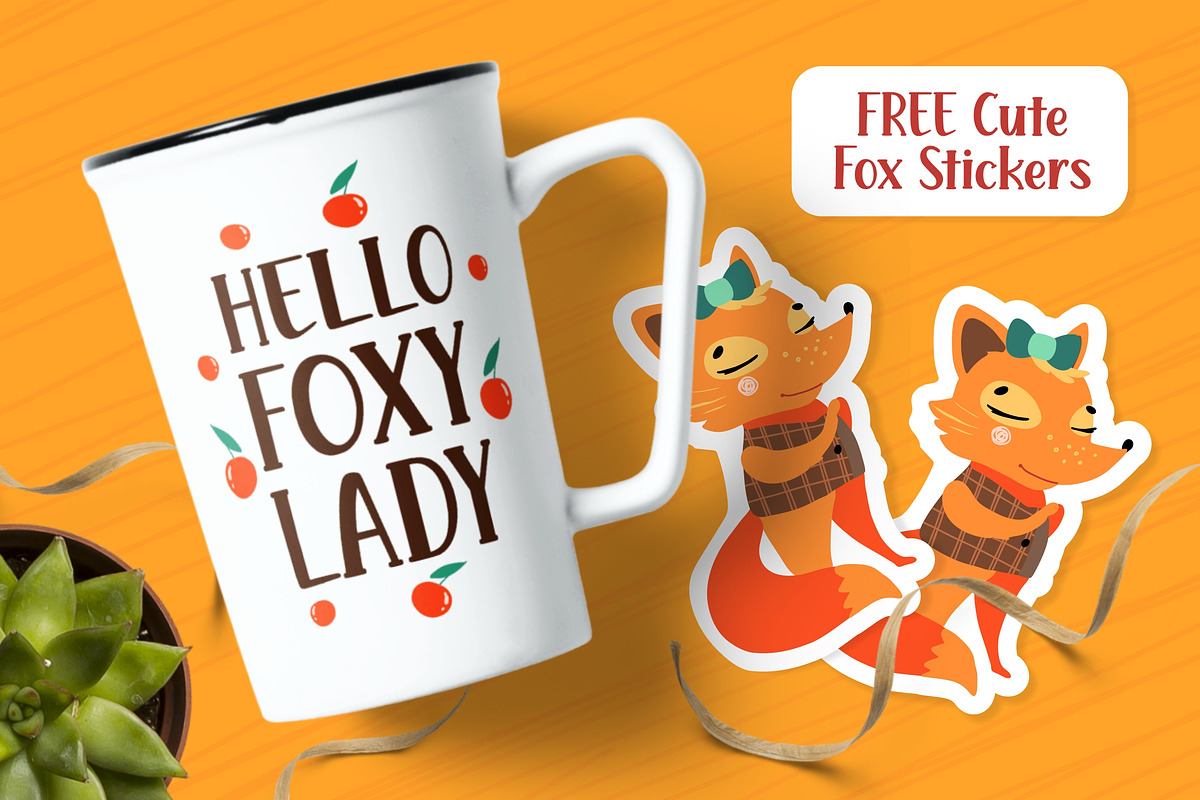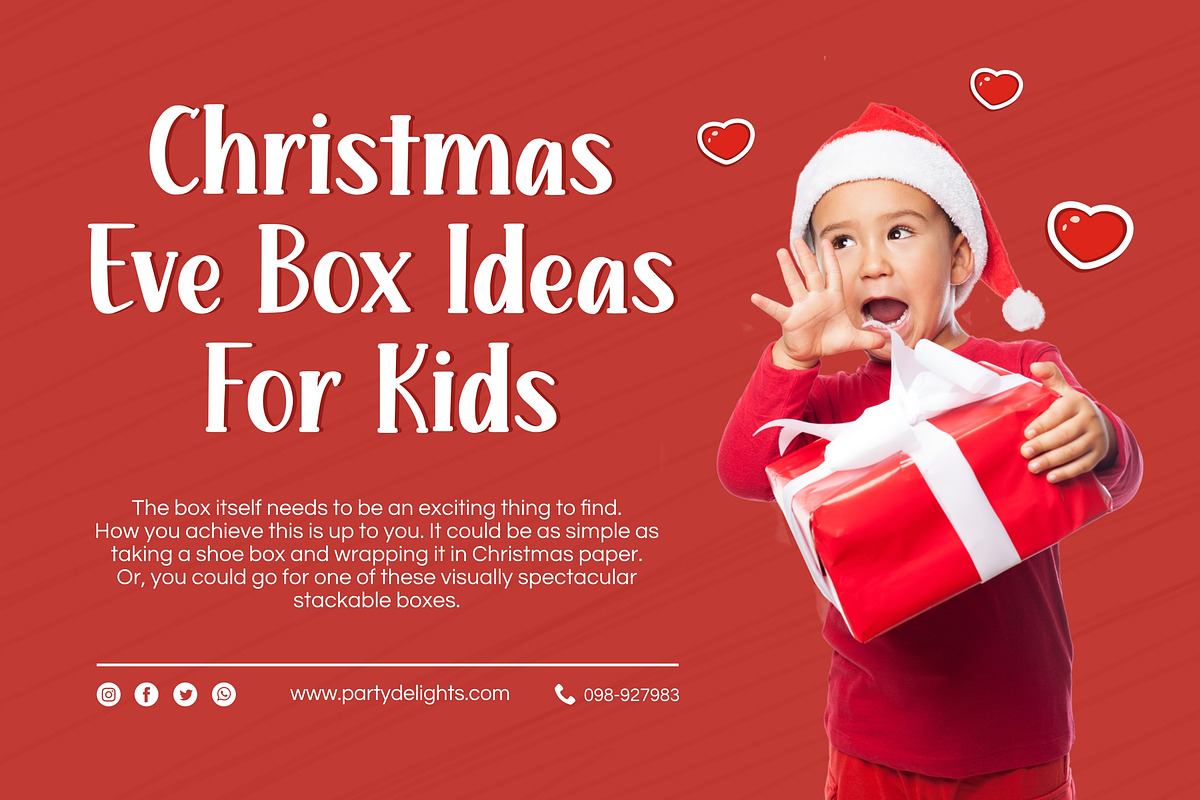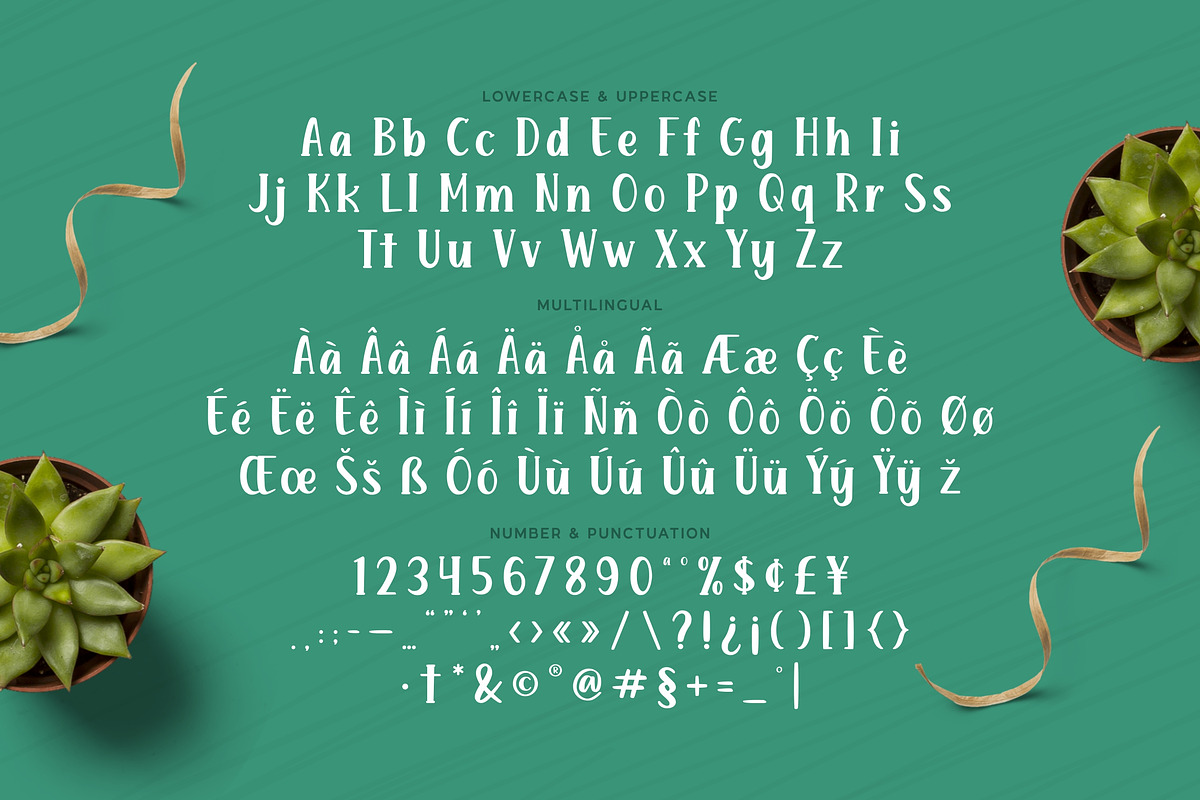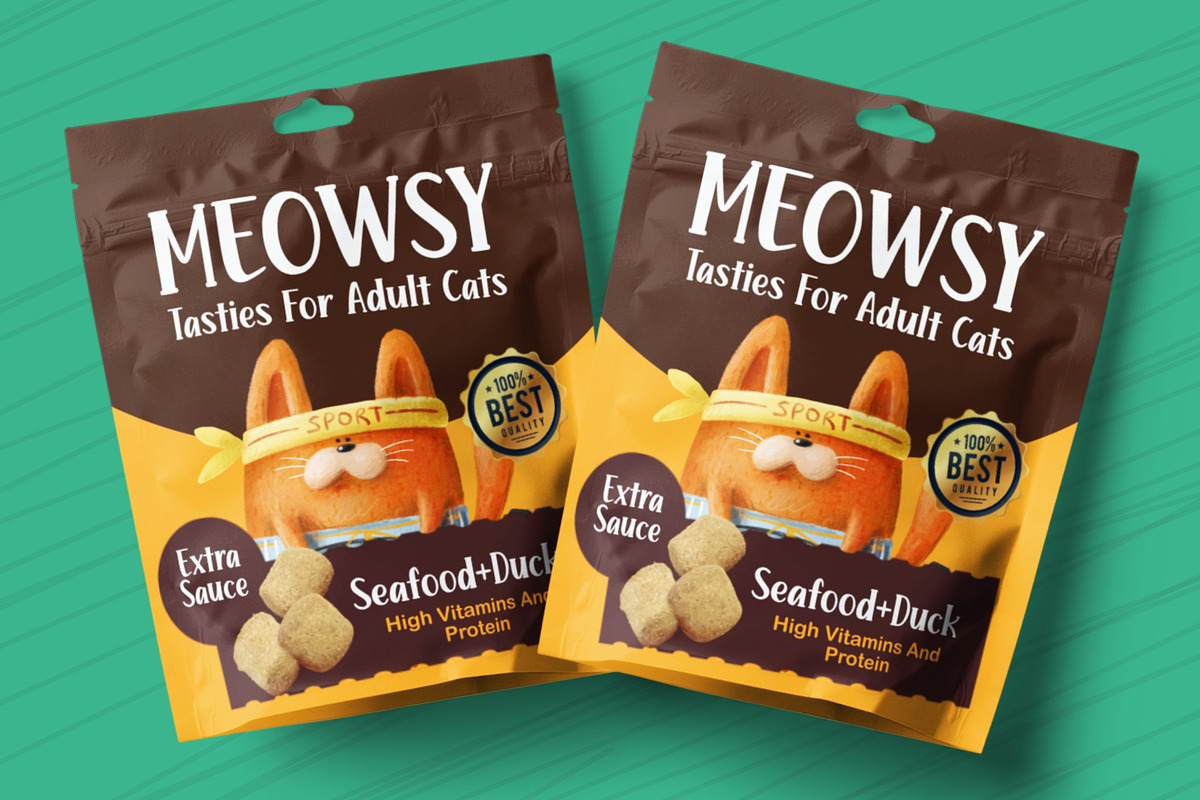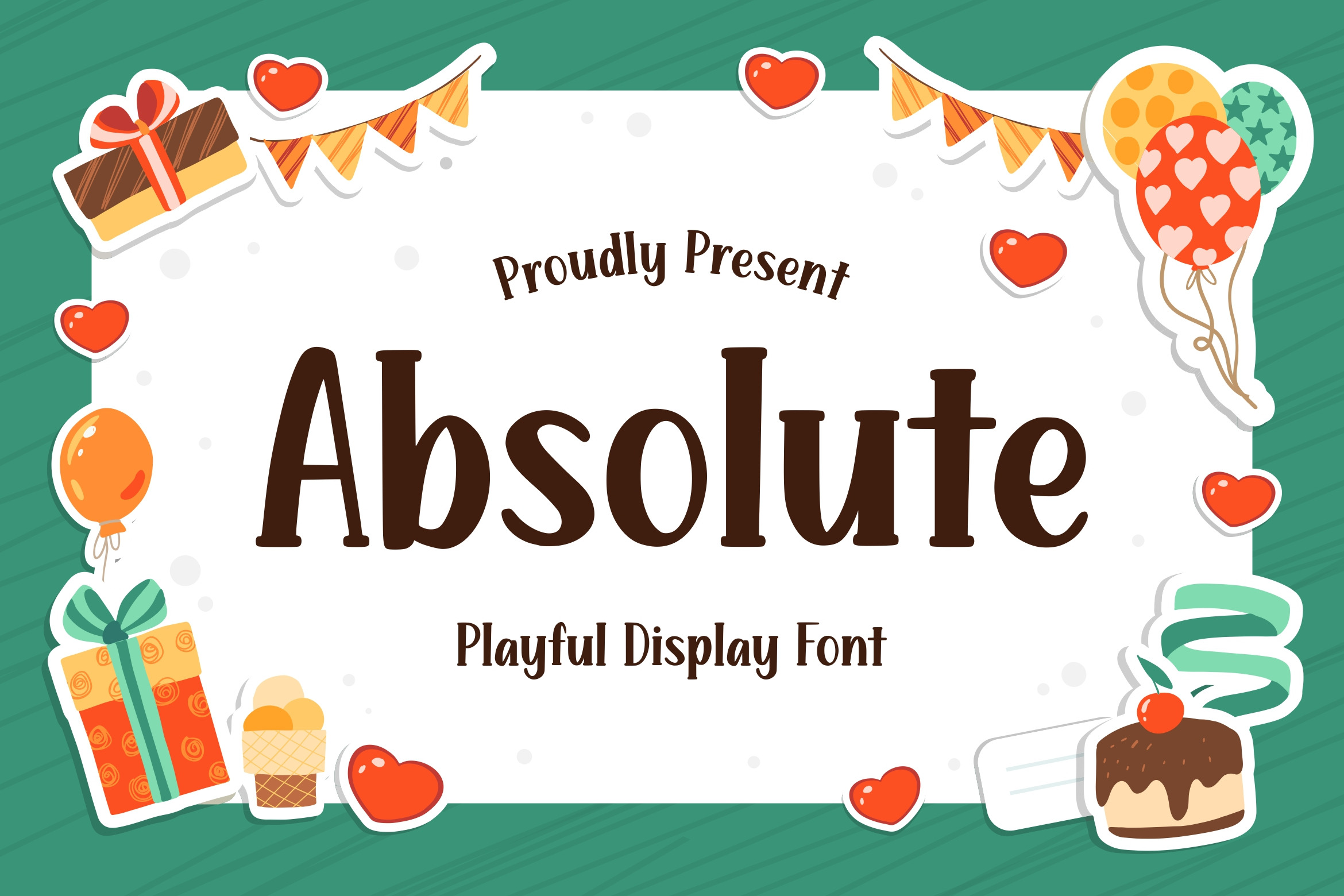
Absolute - Playful Display Font
Proudly present Absolute! This is great playful font designed in 2020. It's a simple playful font with clean lines. This font is well suited for titles, quotes, phrases. Also it would look great in logos, labels, heading, packaging, mug, posters and on t-shirts.
- Numerals & punctuation